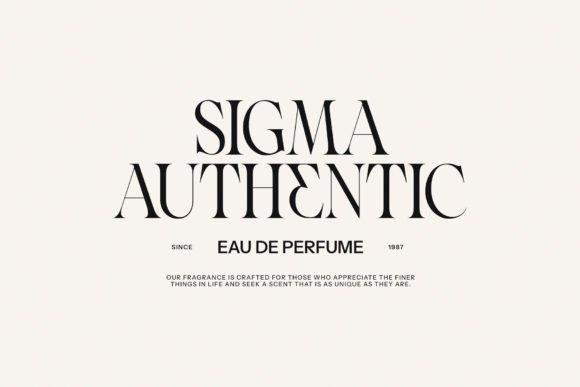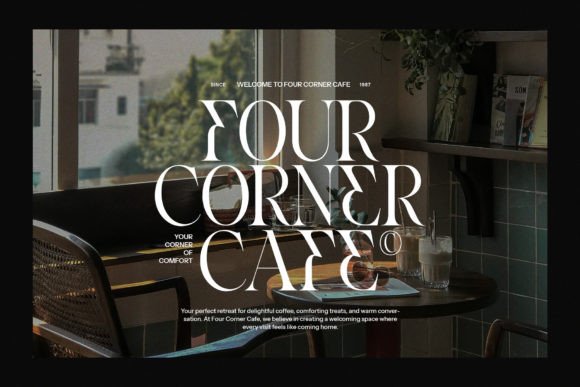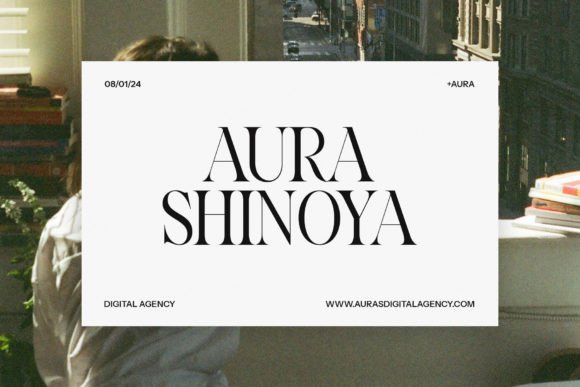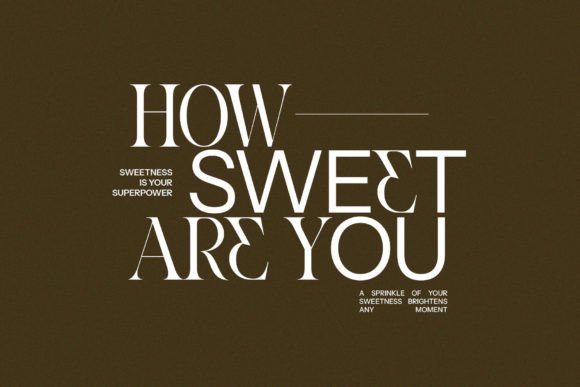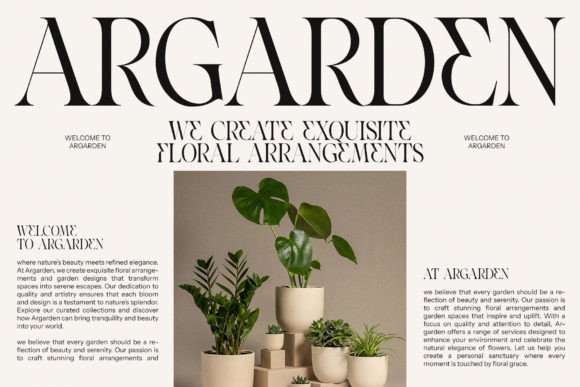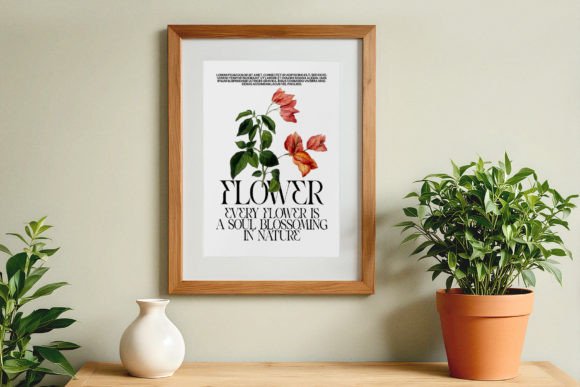
Gemon Font: Elevate Your Designs with Elegance and Sophistication
In the world of typography, fonts play a crucial role in conveying the message and aesthetic of a design. Among the numerous fonts available, Gemon stands out as a special serif font that embodies elegance and sophistication. With its unique, elegant letters and distinct, stylish curves, Gemon is perfect for designers and crafters looking to add a touch of class to their text.
The Unique Features of Gemon Font
Gemon is a carefully crafted font that boasts a range of distinctive features, making it an ideal choice for various design applications. Some of its key characteristics include:
- Unique Serif Design: Gemon’s serif design is unlike any other font. Its elegant and refined serifs add a touch of sophistication to any text, making it perfect for headlines, logos, and designs that require a classy look.
- Stylish Curves: The font features distinct, stylish curves that make it stand out from other serif fonts. These curves add a level of elegance and refinement to the text, making it perfect for designs that require a modern and sophisticated look.
- High Readability: Despite its elegant design, Gemon is highly readable, making it suitable for use in a variety of applications, from body text to headlines.
Gemon is an excellent choice for designers and crafters looking to elevate their designs with a touch of elegance and sophistication. Whether you’re working on a logo, brochure, or website, Gemon can help you create a visually appealing design that captures the attention of your audience.
Some of the design applications where Gemon excels include:
- Headlines: Gemon’s elegant design makes it perfect for headlines, where you want to grab the attention of your audience and convey a sense of sophistication.
- Logos: The font’s unique serif design and stylish curves make it an excellent choice for logos, where you want to create a lasting impression on your audience.
- Brochures and Flyers: Gemon is also suitable for use in brochures and flyers, where you want to convey a sense of elegance and refinement.
- Websites: The font’s high readability and elegant design make it perfect for use on websites, where you want to create a visually appealing and user-friendly interface.
Why Choose Gemon Font?
With so many fonts available, why should you choose Gemon for your design projects? Here are some compelling reasons:
- Unique Design: Gemon’s unique serif design and stylish curves make it stand out from other fonts, ensuring that your designs will be noticed.
- Elegance and Sophistication: The font’s elegant design conveys a sense of sophistication and refinement, making it perfect for designs that require a high-end look.
- Versatility: Gemon is highly versatile and can be used in a variety of design applications, from print to digital.
- Readability: The font’s high readability makes it suitable for use in body text, headlines, and other design elements.
In conclusion, Gemon is a special serif font that offers a unique blend of elegance and sophistication. With its distinct, stylish curves and elegant design, Gemon is perfect for designers and crafters looking to elevate their designs with a touch of class. Whether you’re working on a logo, brochure, website, or any other design project, Gemon is an excellent choice. So why settle for ordinary fonts when you can use Gemon to create extraordinary designs?